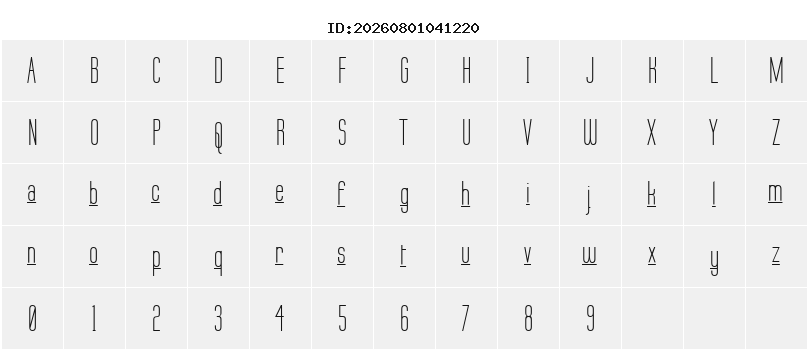
Labtop Underscore Preview
• Font Name: Labtop Underscore
• Font ID: Labtop Underscore
• Full Font Name: Labtop Underscore
• PostScript Name: LabtopUnderscore
About Labtop Underscore.ttf
Labtop Underscore.ttf is a modern, elegant sans-serif font designed for ultimate readability and visual harmony. Perfect for branding, headlines, web design, and print materials.